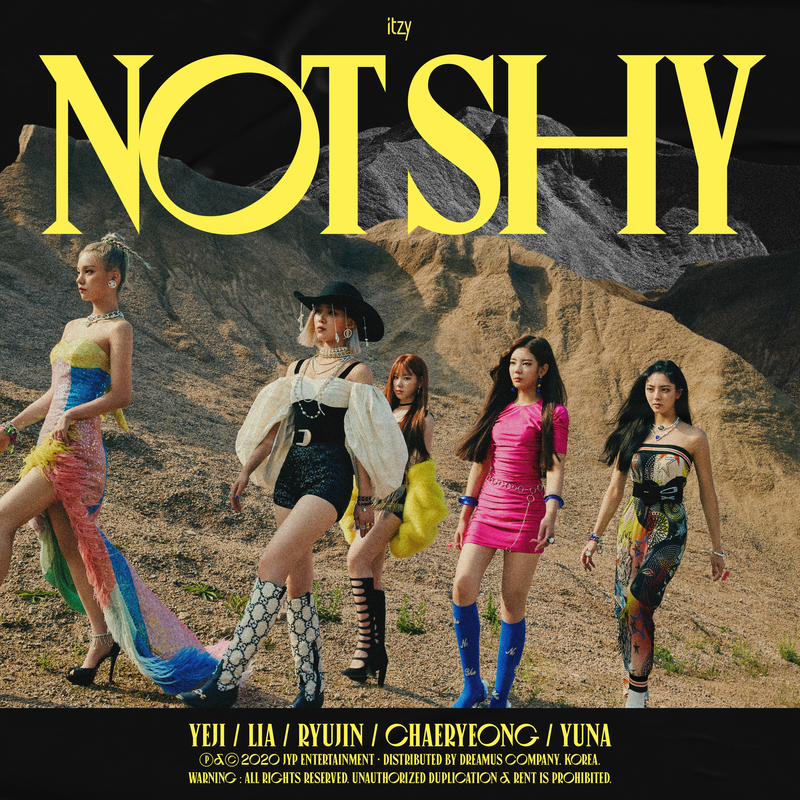
Not Shy Font
Fonts in UseNot Shy is a five-track EP by the South Korean girl group ITZY, released in August 2020. The EP includes the title track "Not Shy" as well as other upbeat and catchy songs that showcase the group's signature sound.
The "Not Shy" EP cover art features a modified version of the Canopée typeface from VJ-TYPE, which is a condensed display font with a single weight. The font includes rounded O, C, and G characters, as well as several alternate options.